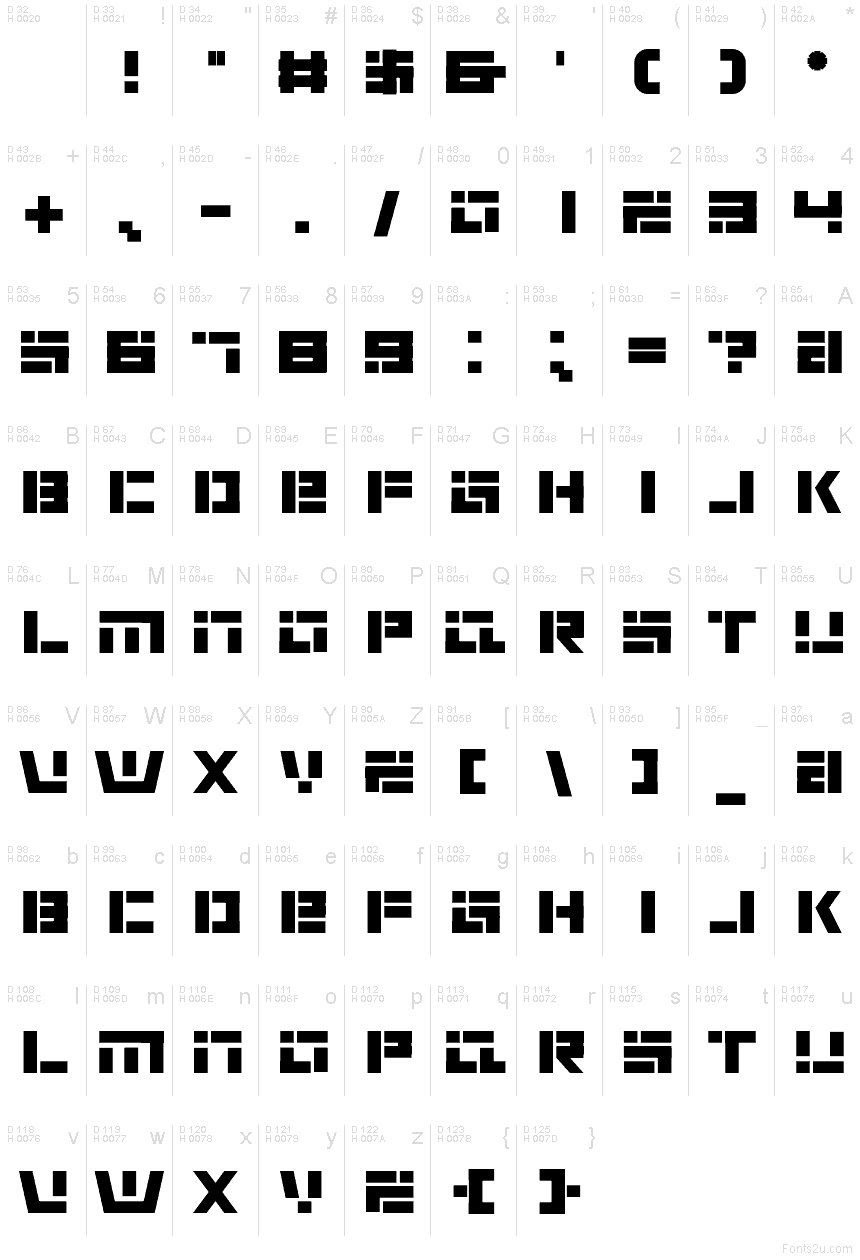
Renvem font by Ffeeaarr is a free display typeface that brings the thrill with expanded and bold letter styles. Created following the rules of geometric shapes, this techno font is sleek, futuristic, and exceptionally structured. Renvem also utilizes thickened strokes to make text more prominent in titles which will ultimately grab people’s attention.
This minimalistic font is great for poster designs, book covers, music album artwork design, digital ads, branding projects or package design. Artists may also find it useful for tattoo sketches if enough inspiration hits. Take advantage of Renvem’s futuristic shape today!